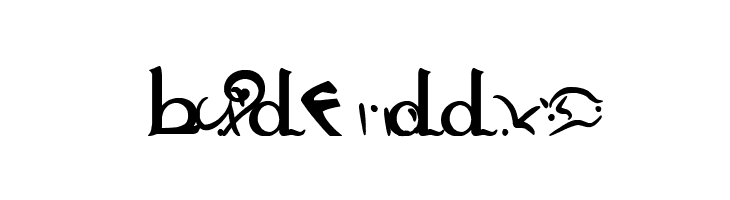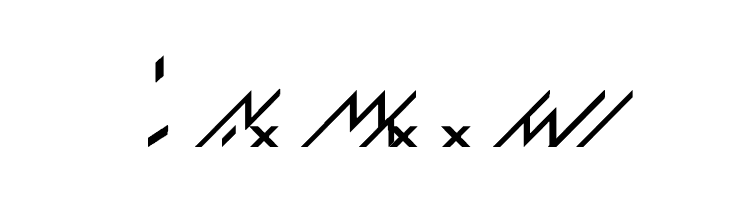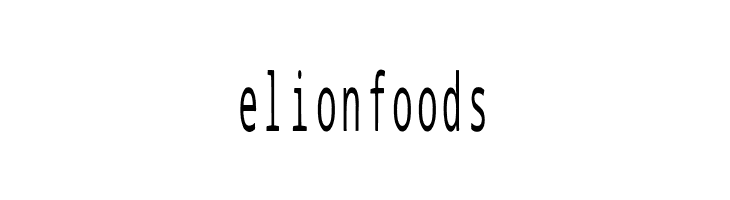
A bold, brush script font with dynamic strokes and artistic flair.
A graceful script font with elegant loops and swashes, reminiscent of classic calligraphy.
A lively and expressive handwritten font with fluid, dynamic strokes.
A dynamic script font with elegant, flowing strokes and a modern calligraphic style.
A bold, playful script font with interconnected letters and a casual, handwritten feel.
A bold, cursive font with smooth, interconnected lines and a handwritten feel.
A playful, handwritten-style font with bold, rounded characters.
A playful, casual handwritten script with flowing, connected letters.
A playful and elegant handwritten script with fluid, connected letters.
A playful and whimsical script font with bold, interconnected letters.
A dynamic script font with elegant, flowing strokes and a modern touch.
A bold, blackletter-style font with sharp, angular lines and intricate details.
A modern, rounded font with a light weight and geometric style.
A playful, whimsical script font with smooth, interconnected letters.
Dynamic, edgy, and italic with sharp, angular strokes and a raw, hand-drawn feel.
A playful handwritten font with smooth, rounded strokes and a casual style.
A graceful and flowing script font with elegant, connected letters.
A bold, dynamic script font with elegant, flowing letterforms.
A playful, hand-drawn font with bold, rounded characters and a whimsical style.
A dynamic and elegant script font with fluid, cursive letterforms and dramatic flourishes.
A lively, cursive handwritten font with fluid strokes and dynamic energy.
A bold, cursive font with a lively and energetic style.
Elegant cursive font with flowing, interconnected characters and a bold style.
A bold, flowing script font with elegant, dynamic letterforms.
A bold, elegant script font with flowing, cursive letterforms.
A lively and flowing script font with elegant curves and smooth connections.
A dynamic and energetic script font with fluid, angular strokes.
A playful and elegant script font with a handwritten style.
A playful and elegant script font with smooth curves and expressive flourishes.
A bold, intricate Blackletter-style font with sharp, angular lines and dramatic curves.
A bold, decorative font with playful curves and rounded strokes.